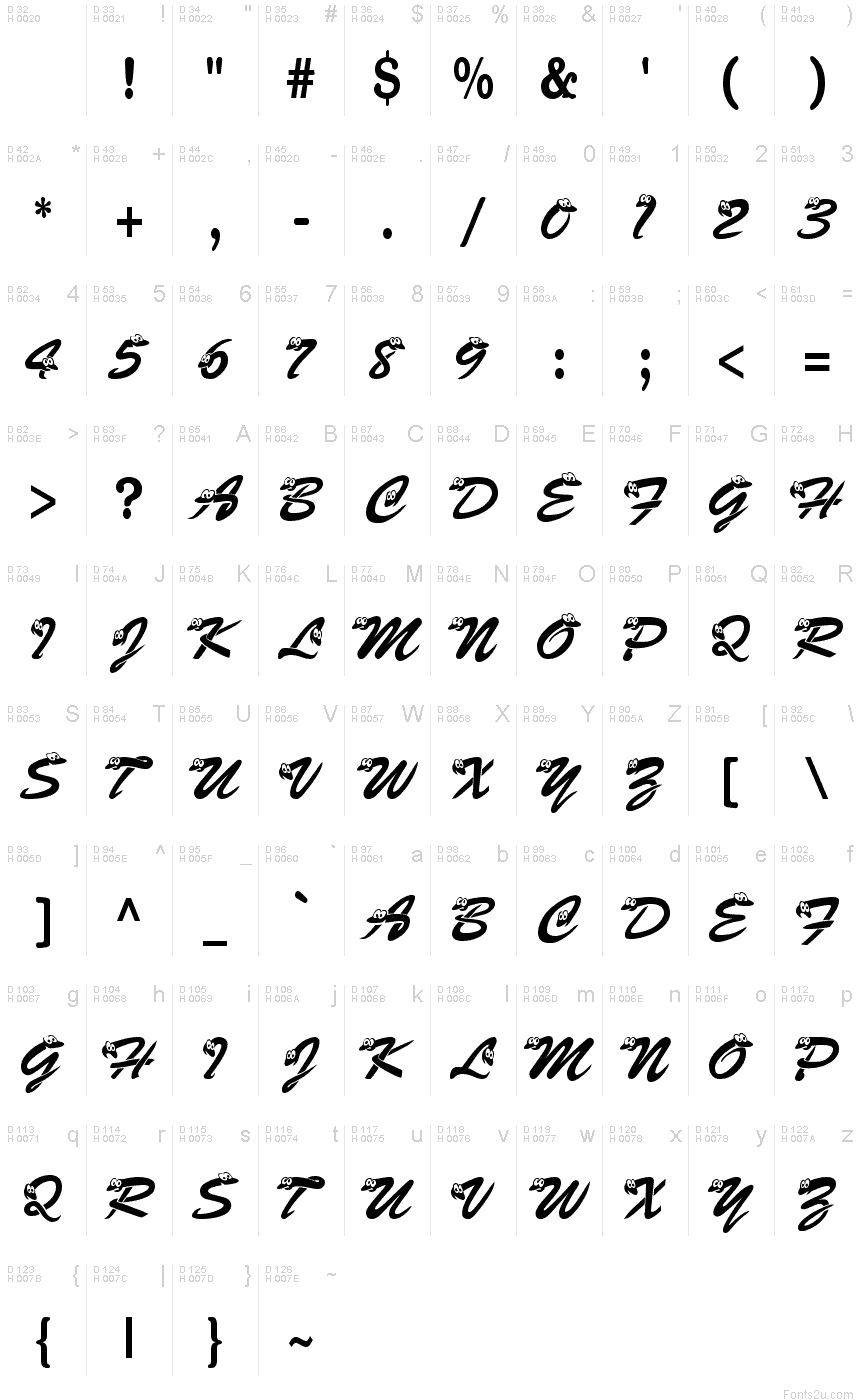
KA Snake by Vytautas Abraitis is a free cartoon display font built around wriggling, snake-like letterforms. Rounded eyes and small reptile heads recur across the lettering, turning its sweeping strokes and sharp bends into a lively cast of creatures.
It can turn a children's book title into part lettering and part illustration, with the snakes carrying the theme before any supporting artwork appears. The same comic construction suits game graphics, party posters, and novelty merchandise, all linked by subjects that welcome mischievous animal imagery.